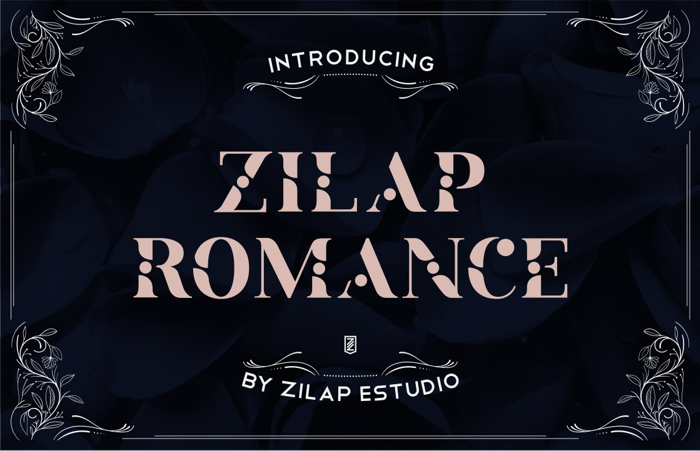
Zilap Romance Font
ZILAP ROMANCE / Personal Use / Typography designed for visual projects related to love, femininity, elegance, fashion. Adaptable for brands, logos, invitations, stationery, product packaging, among others. It is a modern, bold, curvy, romantic and elegant font.
Design & Concept by Zilap Studio
Assembly and foundry by LJ Design Studios